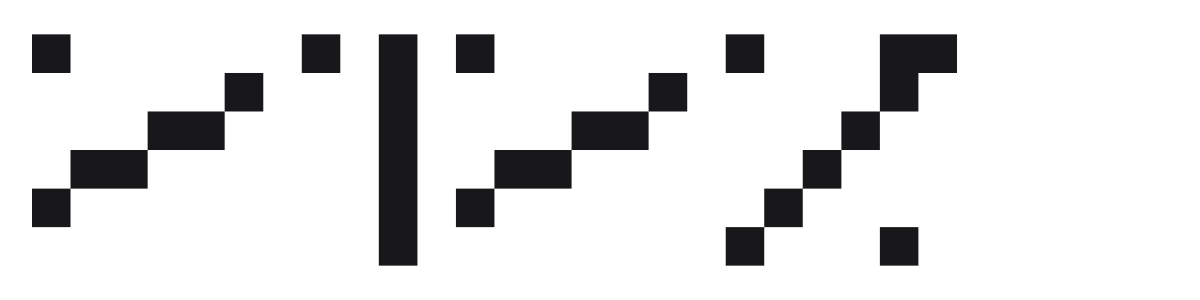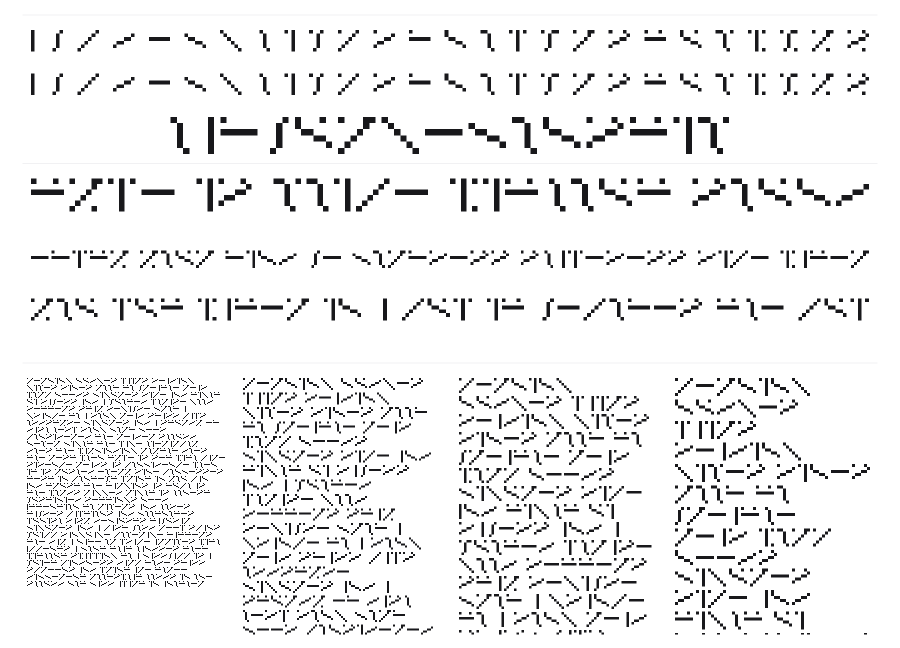
Lily
Lily is a bitmap pixel font built on a coarse square grid, giving each character a chunky, 8-bit silhouette. The angular, stepped construction reads somewhere between early computer type and invented script. It works best large, where the pixel structure becomes part of the visual statement.